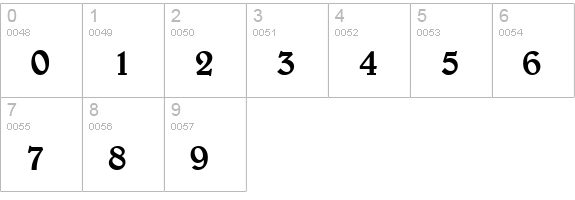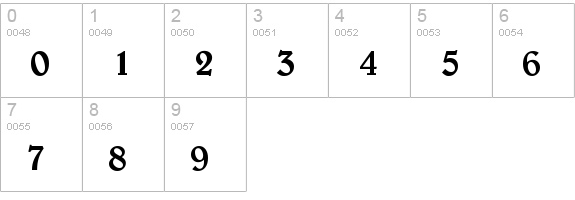
Blew Normal is the standard, neutral variant in the Blew typeface family \xE2\x80\x94 well suited to general body text, paragraphs, and standard typographic work.
Blew Normal font is a modern and elegant typeface that will add sophistication to any design project. With its clean lines and stylish curves, this font is perfect for both headings and body text. Its versatility makes it suitable for a wide range of applications, from branding to editorial design. What sets Blew Normal font apart is its unique blend of classic and contemporary elements, making it a standout choice for designers looking to make a statement. The sleek and professional look of this font is sure to impress your audience and elevate your designs to the next level. Best of all, Blew Normal font is available for free download at FontsMarket.com. So whether you're a seasoned designer or just starting out, you can easily access this stylish font and incorporate it into your projects. Don't miss out on the opportunity to enhance your designs with Blew Normal font today!